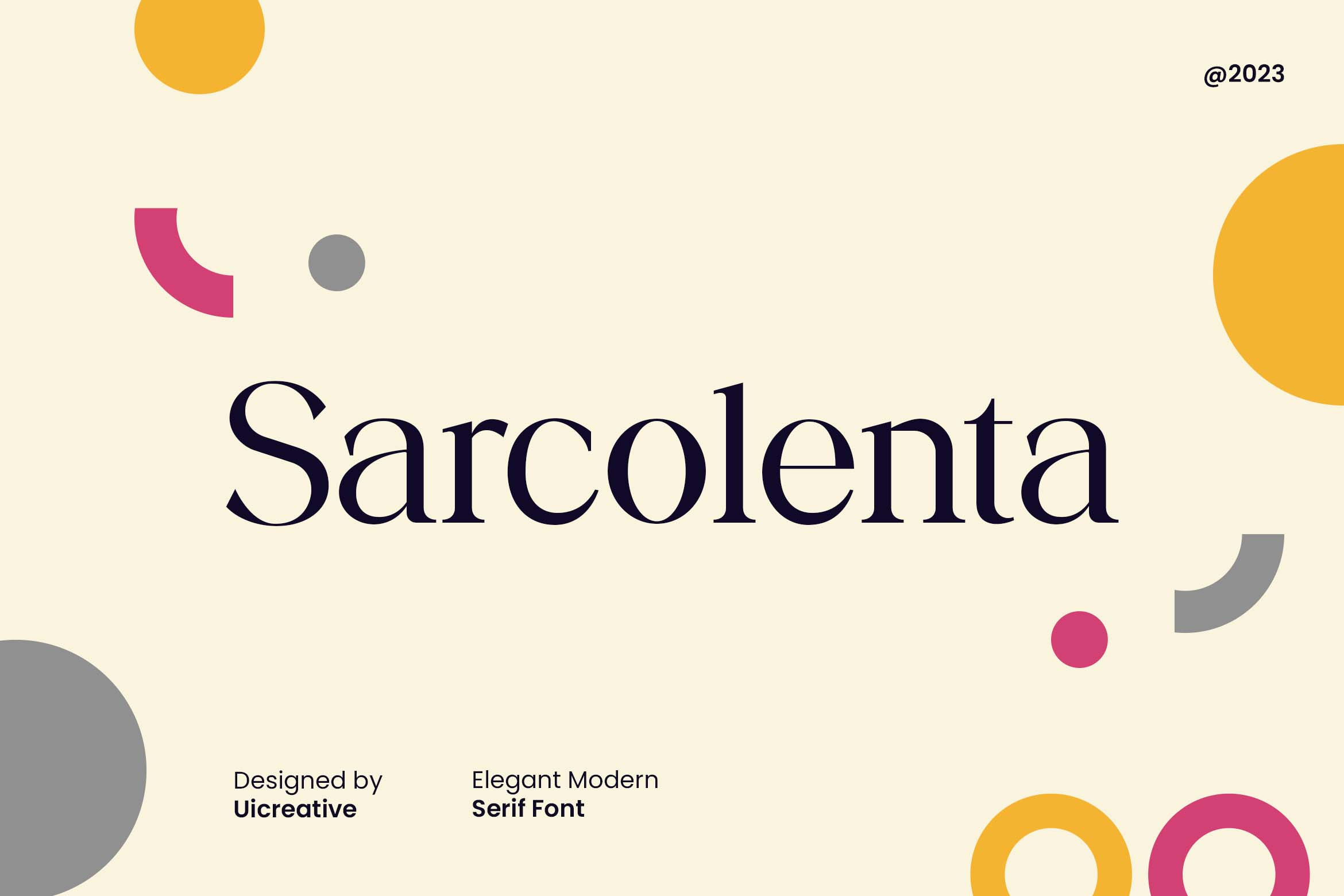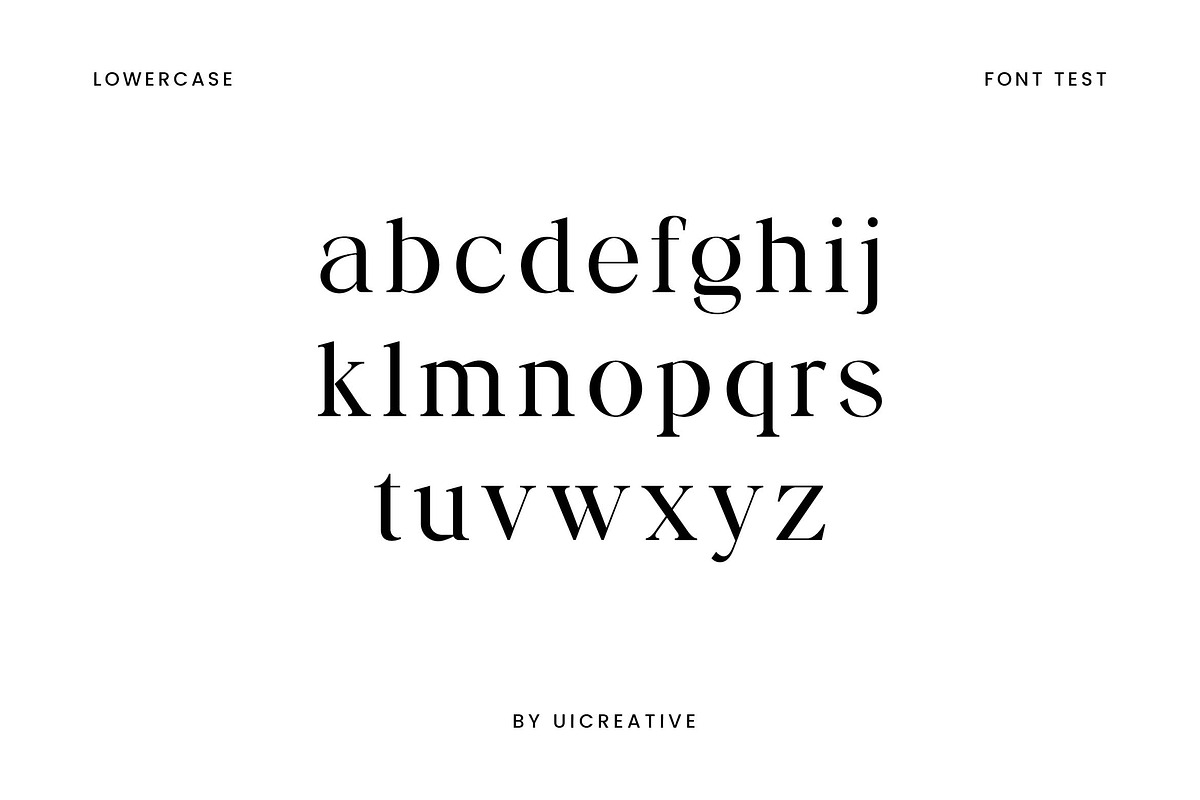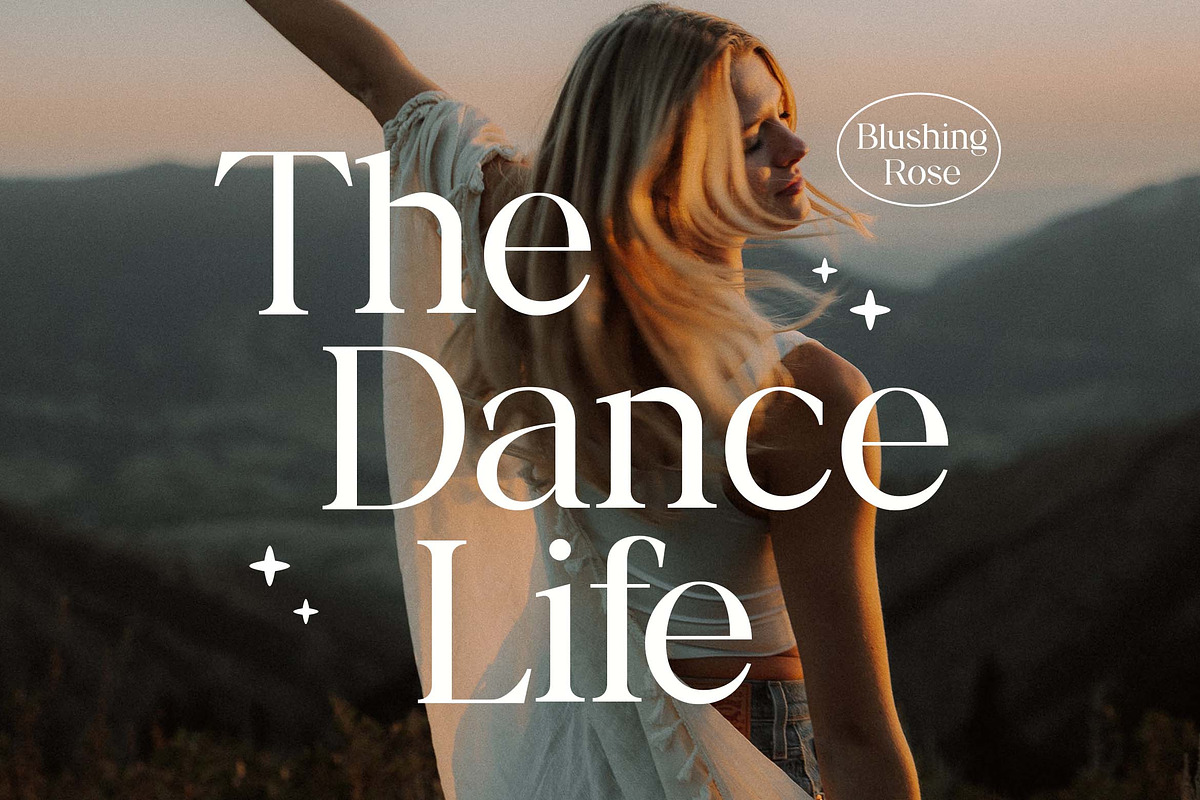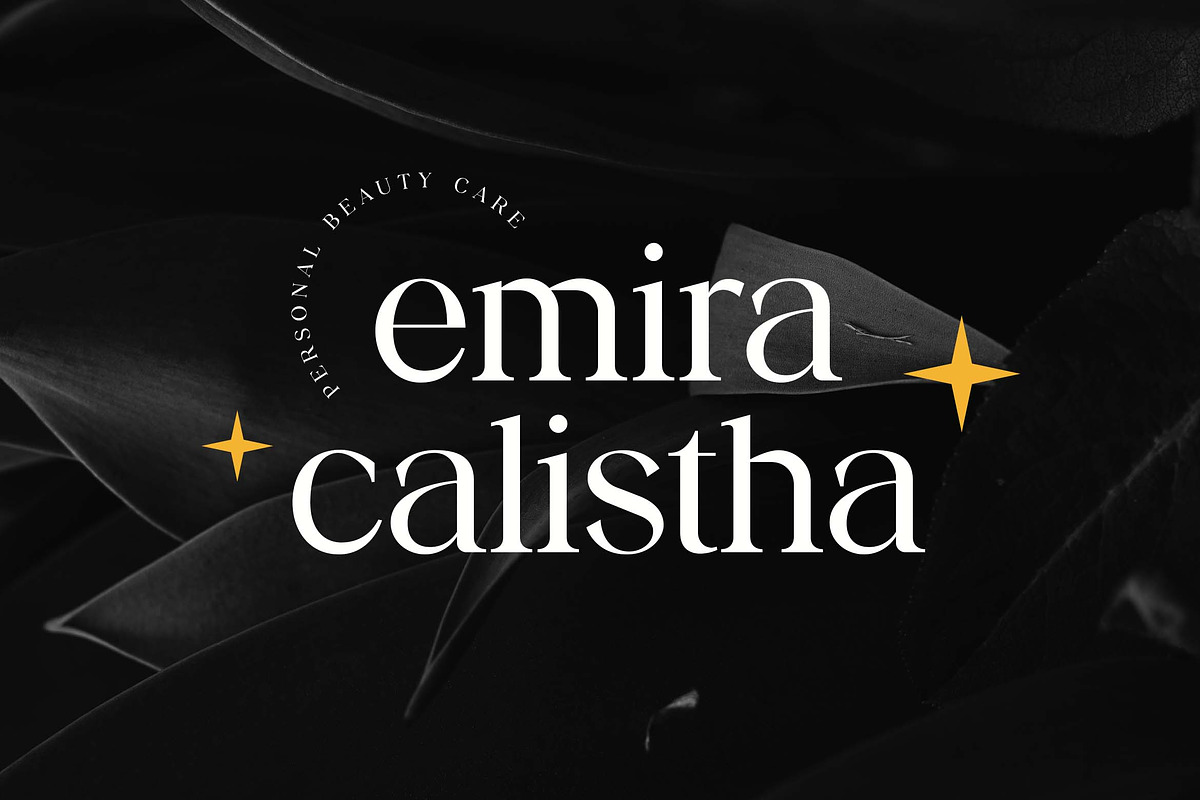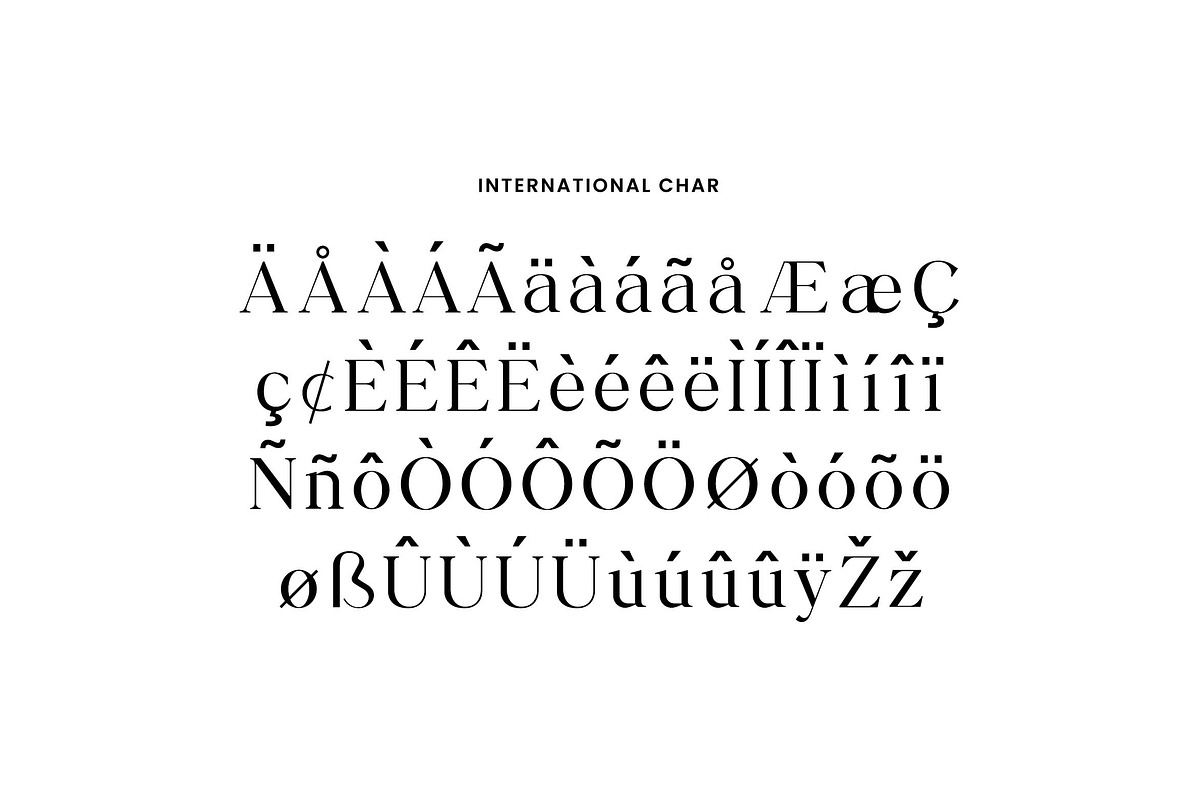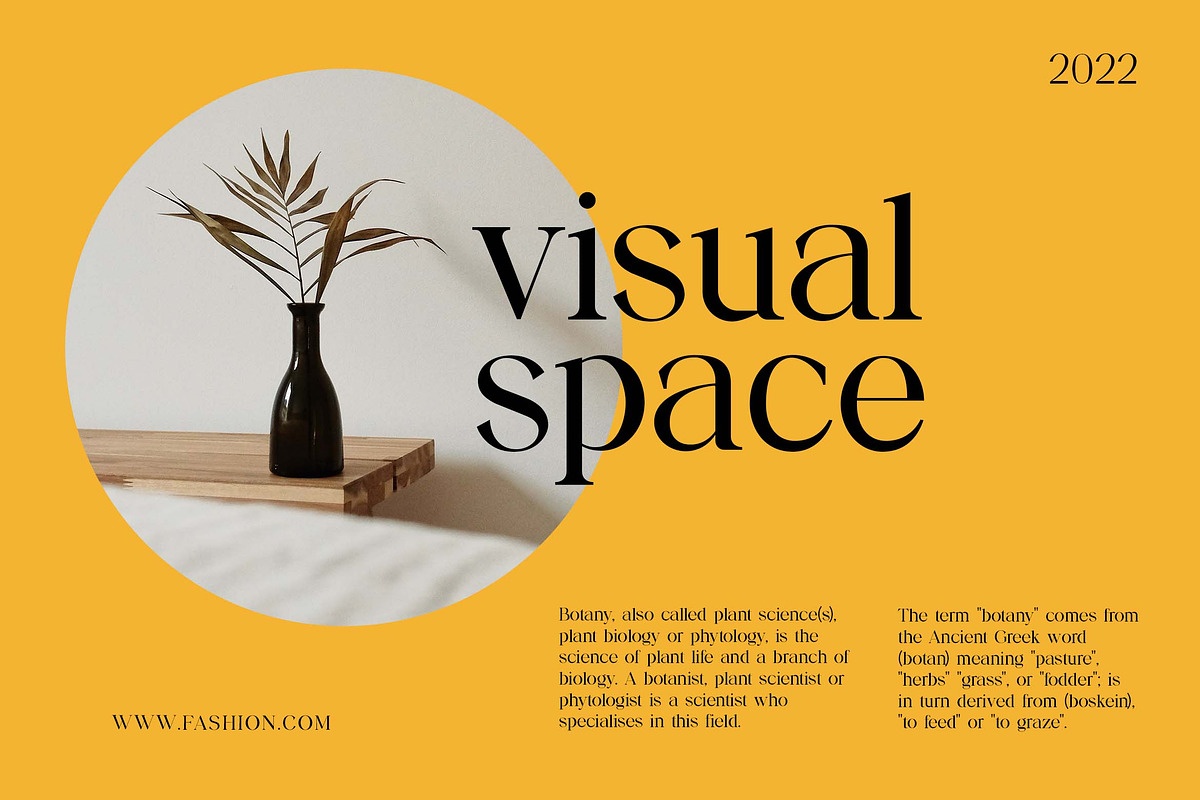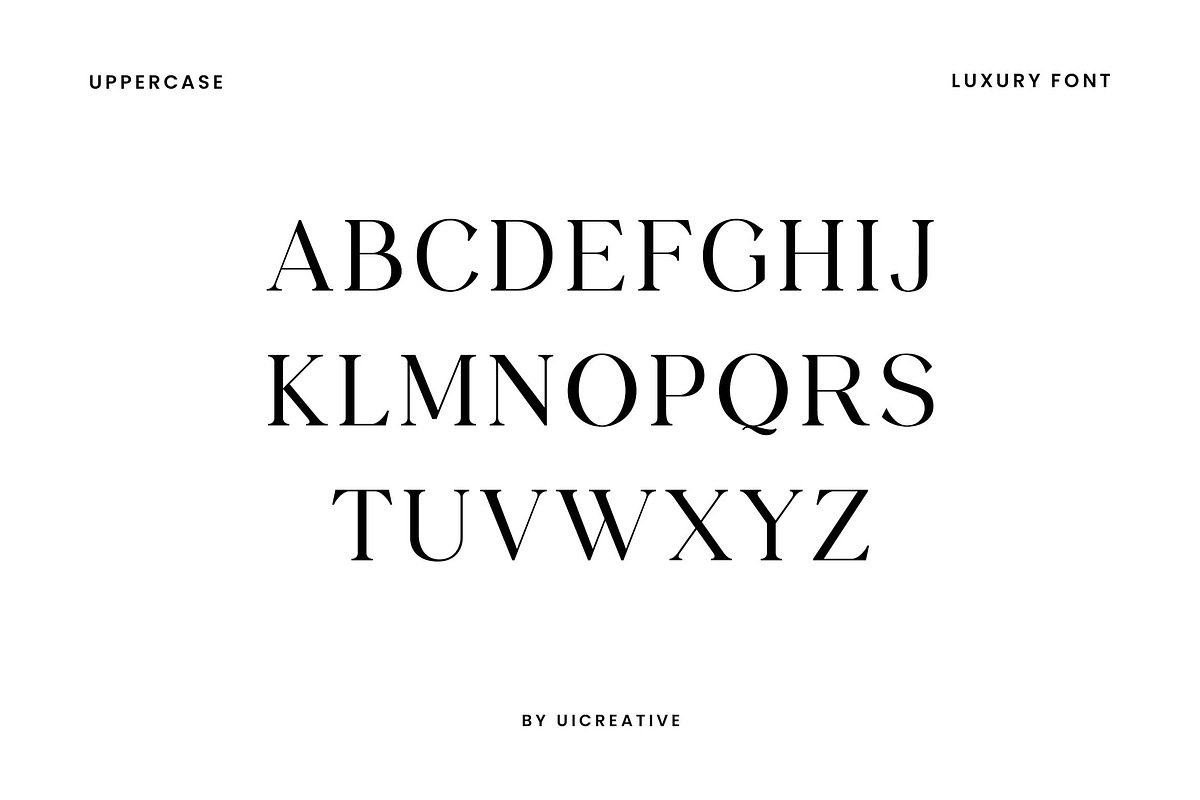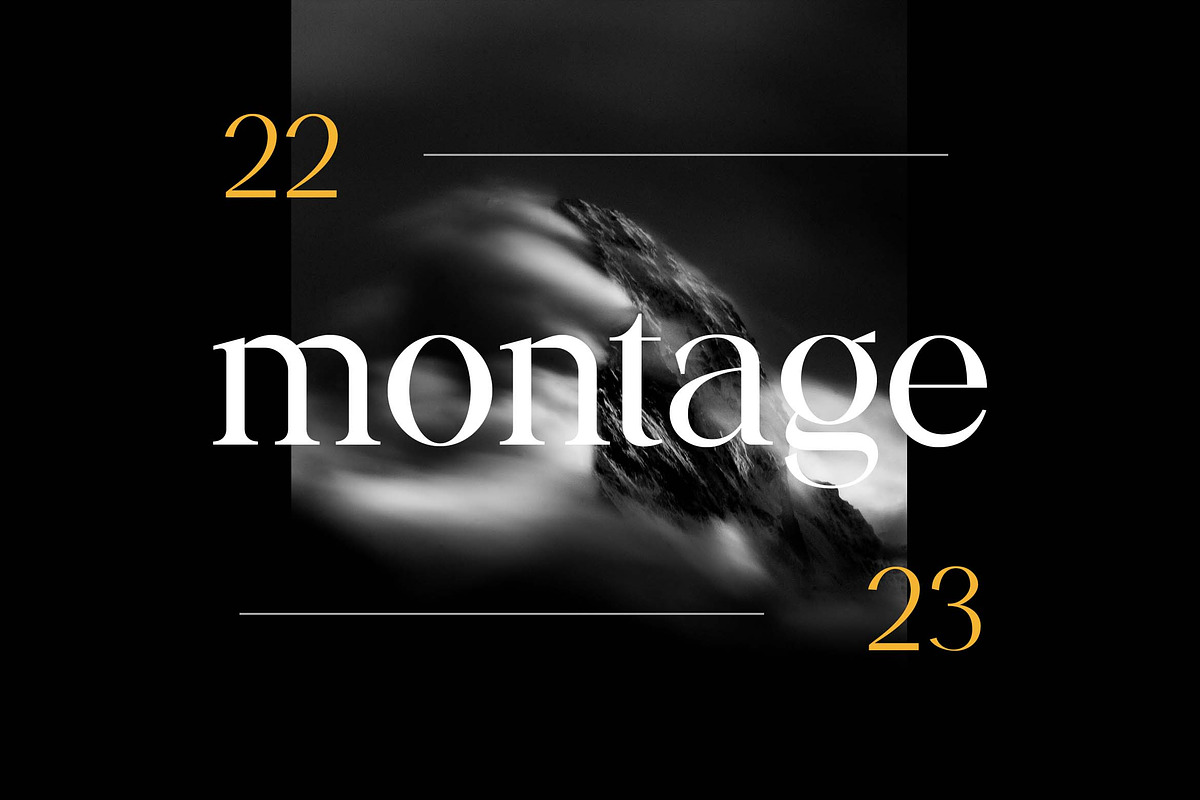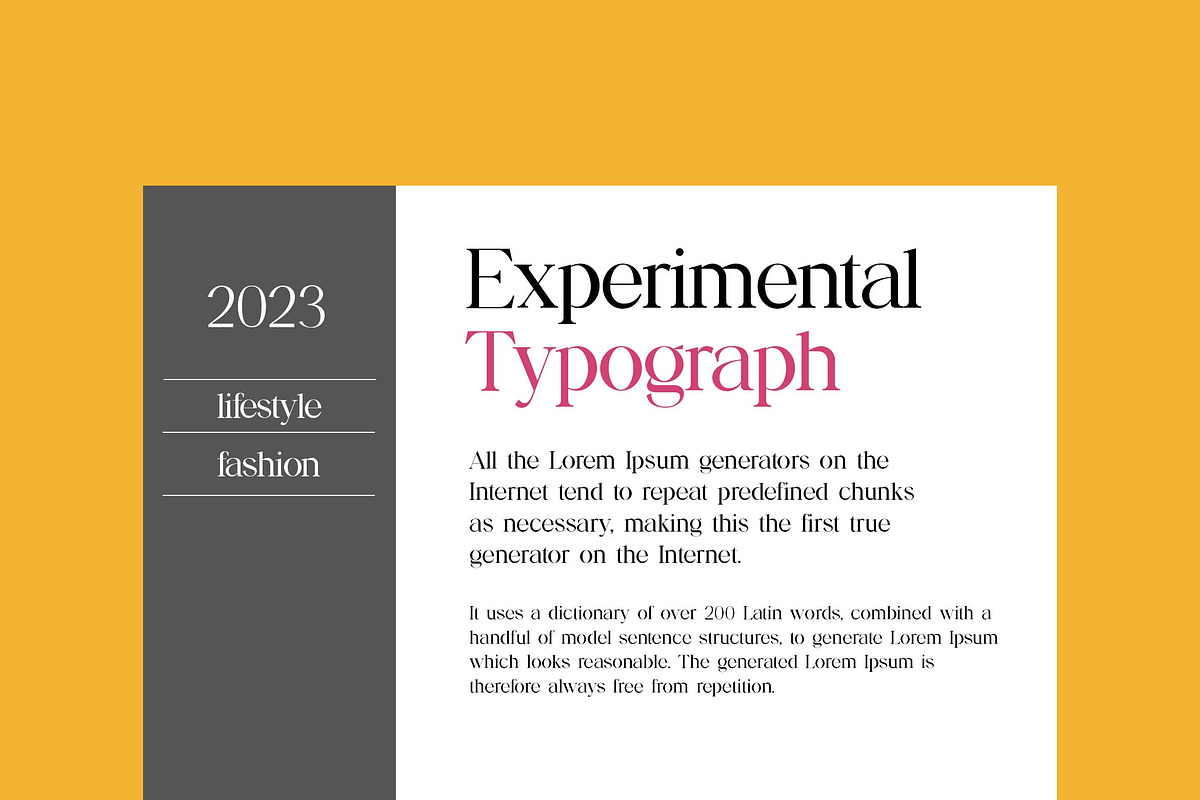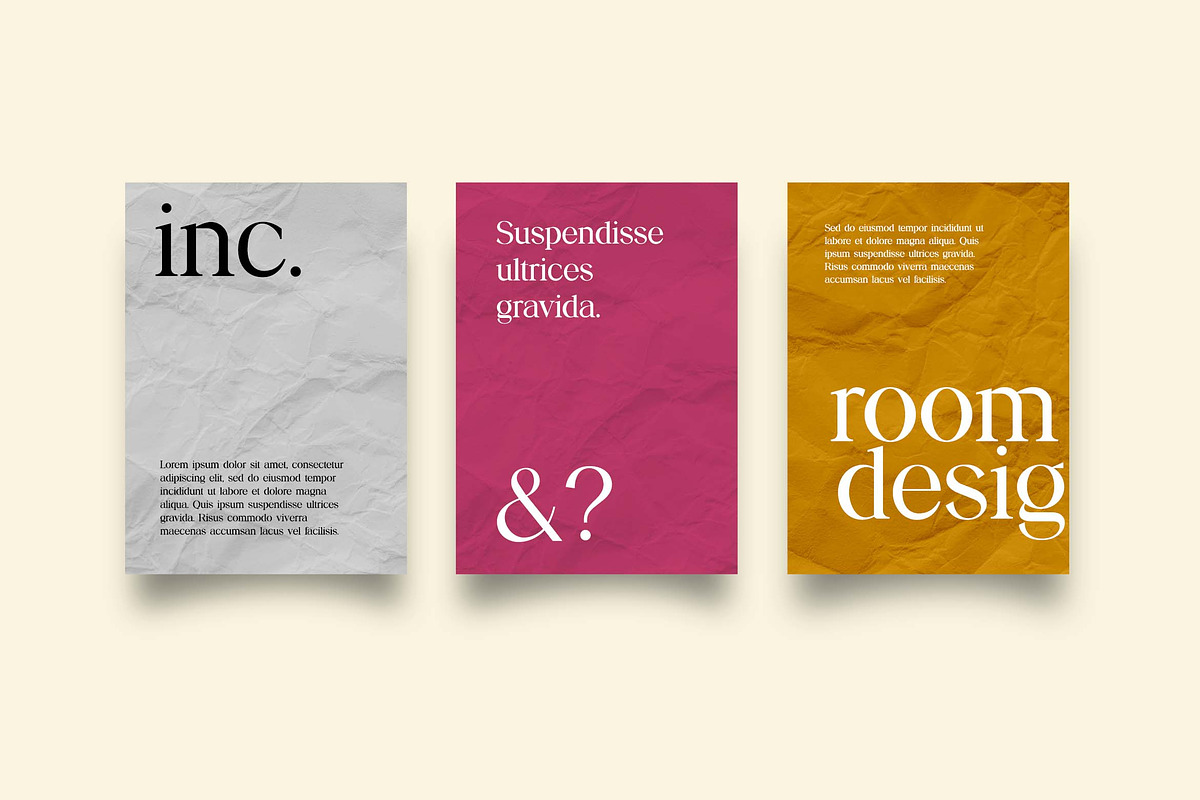
Sarcolenta Elegant Modern Serif Font
Introducing our new product the name is Sarcolenta Elegant Modern Serif Font. Modern Serif font that feels beautiful classy, elegant, and modern. This font is ideally suited for a wide variety of projects, such as signature, stationery, logo, wedding, typography quotes, magazine or book covers, website headers, clothing, branding, packaging design, and more. Also, fashion-related branding or editorial design displays both masculine and feminine qualities.